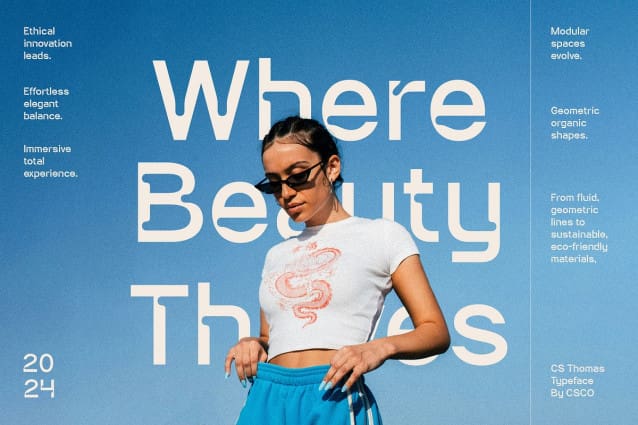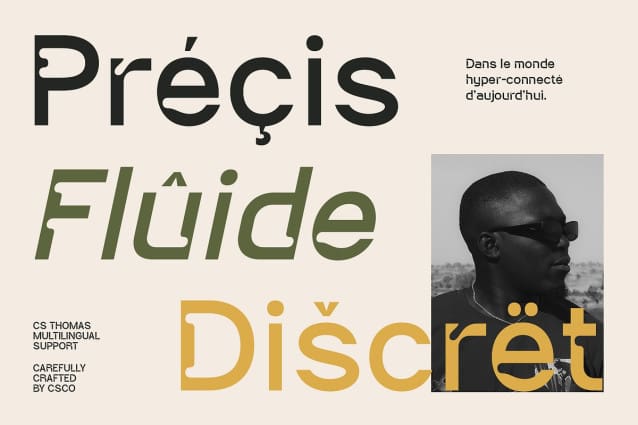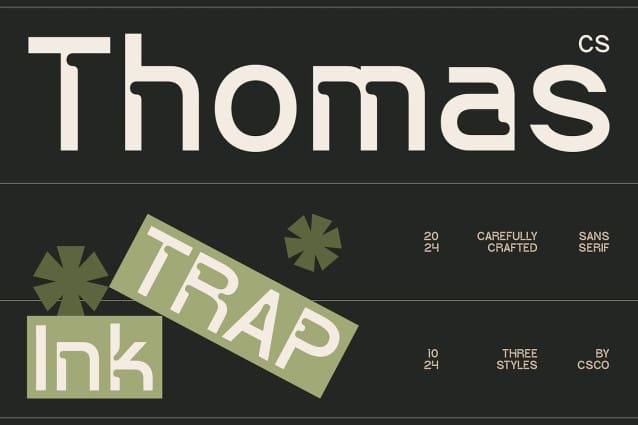
CS Thomas Font
CS Thomas Font is a modern sans serif font that showcases unique inktrap shapes, characterized by bold lines and defined angles at the intersections of the letterforms. This thoughtful design enhances readability across various sizes, making it a versatile choice for contemporary projects. Its clean and sharp aesthetic conveys professionalism and clarity, ensuring that your message stands out effectively.
Versatile Application for Contemporary Designs Ideal for branding, web design, and technical layouts, CS Thomas combines functionality with a strong visual presence. The inktrap features create a seamless flow in text, improving legibility even in intricate designs. This font is perfect for projects that prioritize visual clarity while maintaining a modern look, making it suitable for everything from corporate identity to user interfaces.
A Perfect Balance of Style and Functionality CS Thomas strikes an impressive balance between style and practicality, allowing designers to create impactful and engaging compositions. Its bold forms and clean lines exude confidence, making it an excellent choice for both print and digital applications. Whether you’re crafting marketing materials, signage, or editorial content, this font will elevate your design with its contemporary charm.